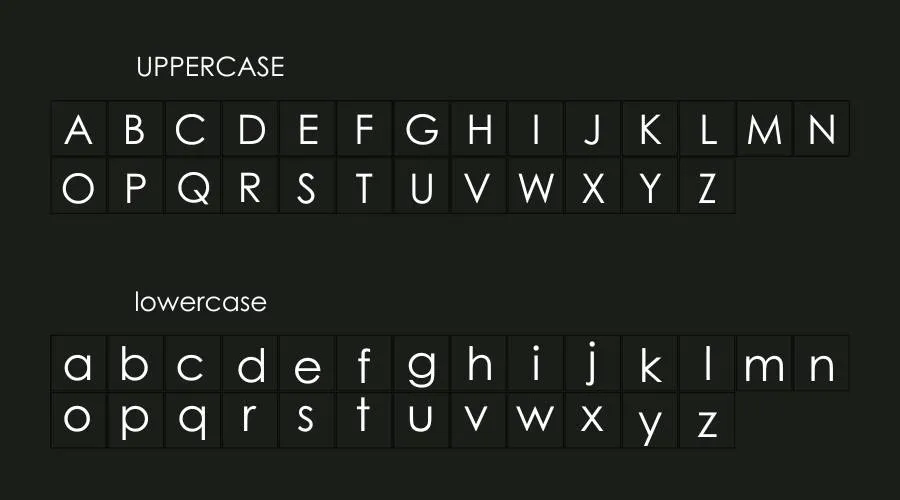
About Weezer Font
The Weezer Font is a famous geometric sans serif typeface family created by Karl Koch. He is a popular American typographic designer. This attractive typeface contains more than 200 glyphs. You may get it free from here in both file formats OTF and TTF, which is perfect for different working systems such as Windows, Mac, Android, and many more.
It has more than 198 stylish characters of the alphabet set such as numerals, uppercase letters, lowercase letters, digits, symbols, and punctuations. After it was published in the font world, this font gained favor in a very short time due to its neat and eye-catching texture look appearance for visitors.